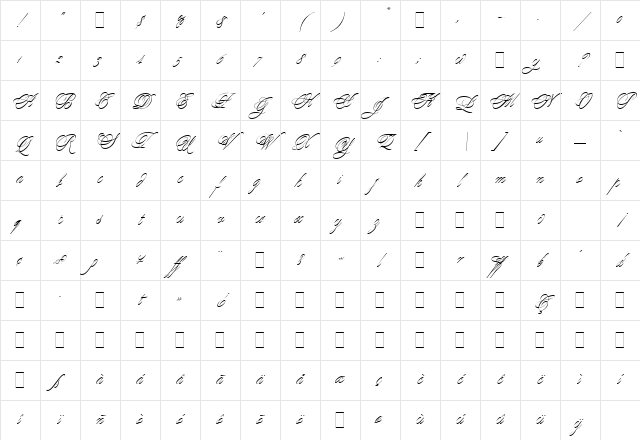
Young Baroque LET Regular
Young Baroque LET Family
Design Context for Young Baroque LET
Young Baroque LET is a composed and adaptable typeface that performs quietly and consistently across a wide range of design contexts.